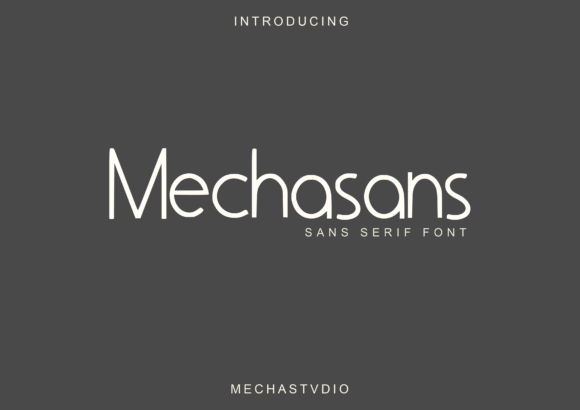
Immerse yourself in the world of UI/UX design with Mechasans, the sleek and modern sans serif font that will elevate your creations to new heights. Crafted by the renowned MechaStudio, Mechasans embodies simplicity and innovation, seamlessly blending a clean aesthetic with a touch of the extraordinary.
Unleash the power of Mechasans to transform your digital interfaces into captivating masterpieces. Its versatility knows no bounds, effortlessly adapting to a myriad of projects, from website designs to mobile applications. With Mechasans, you hold the key to crafting user experiences that resonate with elegance and leave a lasting impression.
Experience the allure of Mechasans in its purest form, where every curve and angle exudes sophistication. Its minimalist character allows your designs to shine through, while its unique style ensures they stand out from the crowd. Whether you seek to captivate your audience with eye-catching headlines, craft intuitive menus, or design engaging user interfaces, Mechasans is your trusted companion, guiding you toward design excellence.
Embrace the future of UI/UX design with Mechasans, the font that not only meets your needs but exceeds your wildest dreams. Its timeless appeal and versatility empower you to create designs that transcend trends, designs that connect with users on an emotional level and establish a lasting connection.